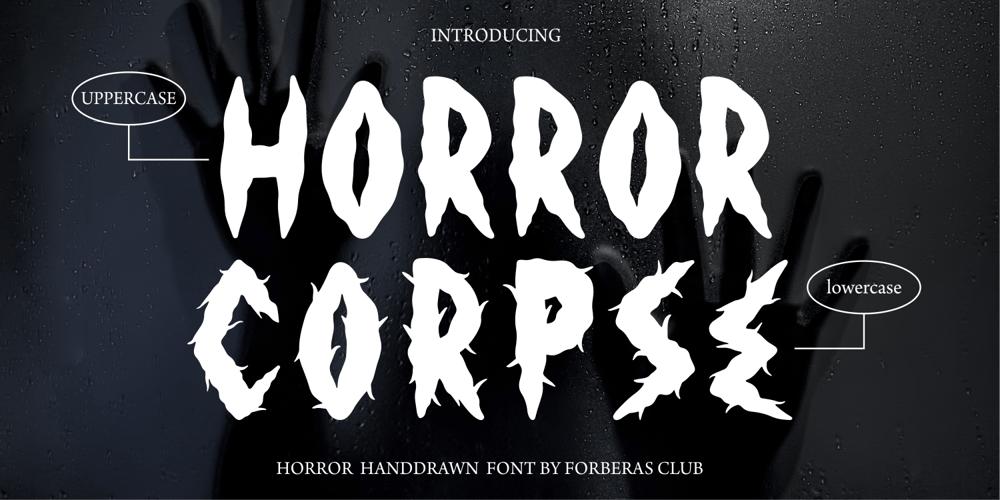
Horror Corpse Font Family was designed by ANGGI HERMAWAN and published by Forberas Club. Horror Corpse contains 1 styles and family package options. Our Halloween font treat for you, this is special handwritten font by our team to support your project.